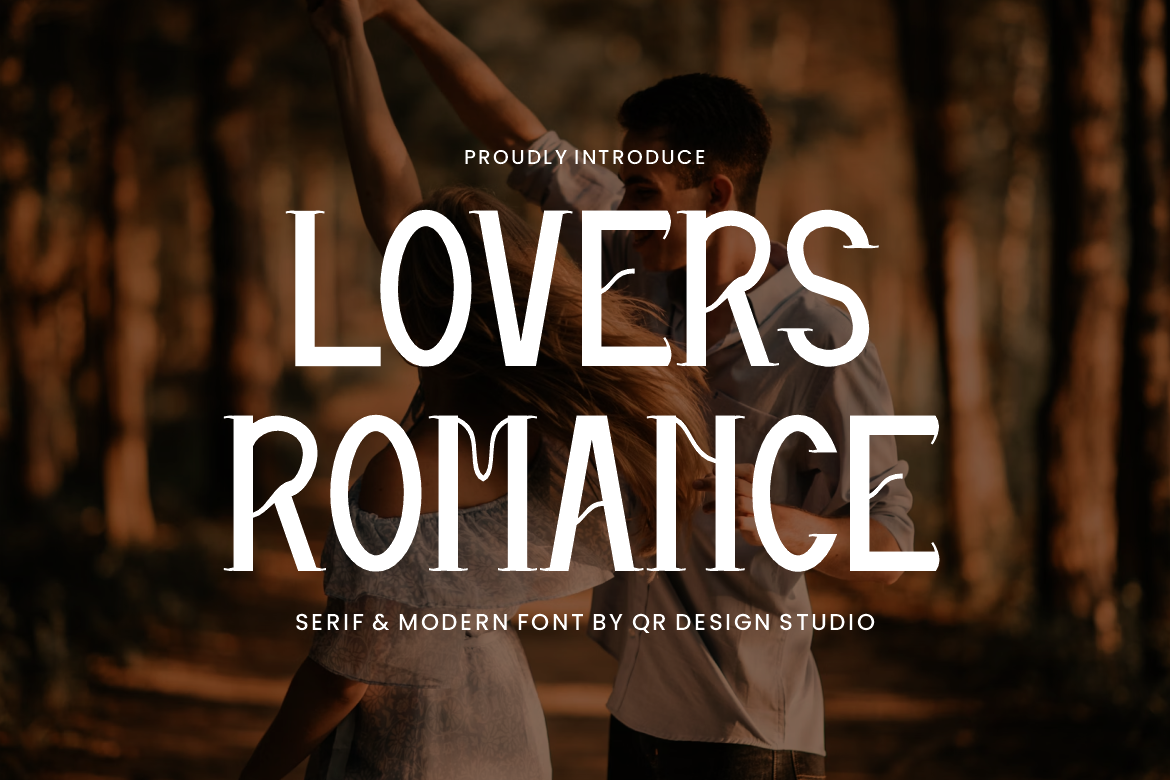
Lovers Romance - Valentine Font
Lovers Romance - Valentine Font is a serif and authentic display font. The font is suitable for any branding project like poster, logo, sport, and many more. Outstanding in a wide range of contexts.